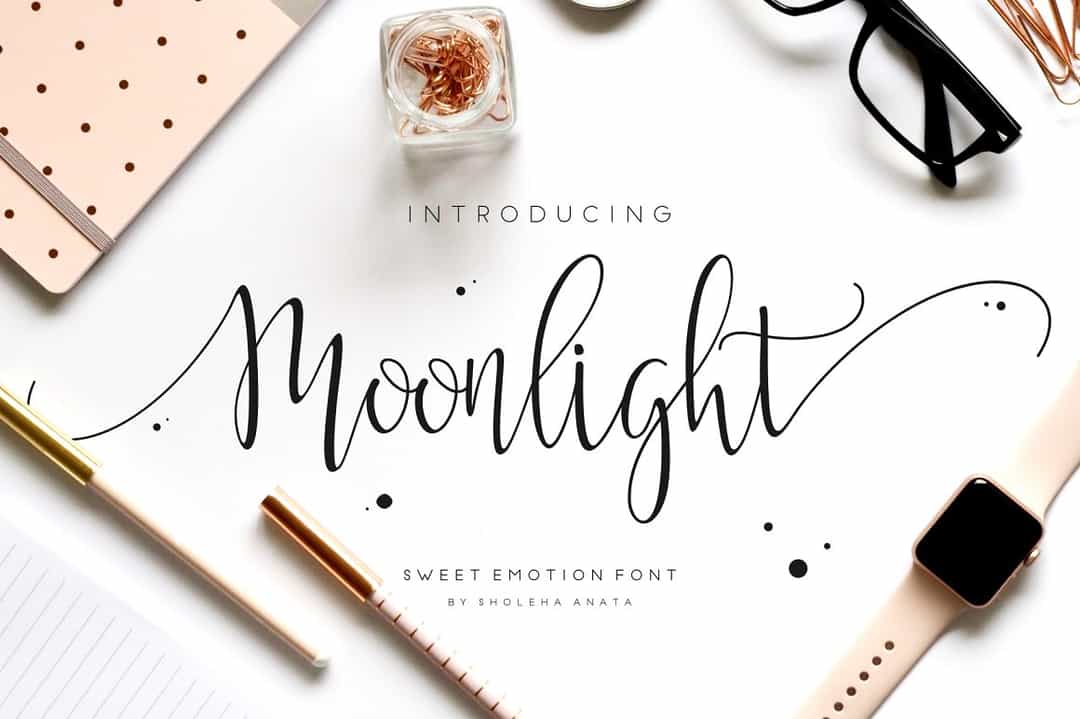
Discover Moonlight Font, part of the Calligraphy Handwritten collection—a versatile and unique font perfect for adding a personal touch to your projects. Download it for free and enjoy crafting designs with style, from invitations to social media posts. This font is available exclusively for personal use, giving you the freedom to create without limits. Unlock your creativity with Moonlight Font today!
Moonlight font is the newest font that has been tagged sweet emotion at Dezignata, contemporary handwriting script was the guiding style in the cutting-edge of graphic design. There are four types, or styles, these include; regular light, bold and alt. The following script carries in a complete set both the uppercase and the lowercase characters together with Standard Ligatures which, if employed in your work, will create stunning designs.